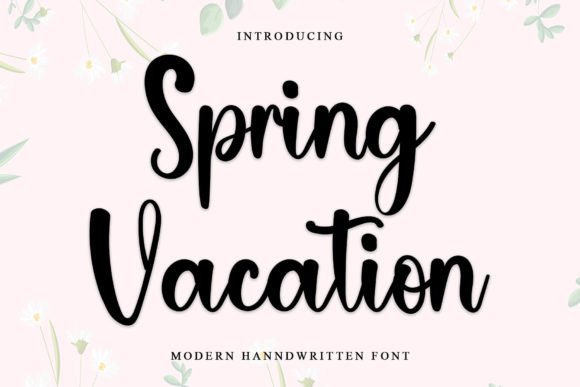
Adorn your designs with the magic of Spring Vacation Font, a captivating handwritten script family. Its charming elegance and delicate touch will elevate your creative projects, transforming them into breathtaking masterpieces. Inspired by the joys of springtime, this font exudes warmth, happiness, and a touch of playful whimsy.
Bring your words to life with the graceful curves and flowing lines of Spring Vacation Font. Its distinctive style adds a personal touch to your designs, making them stand out from the ordinary. Whether you're a seasoned designer or just starting your creative journey, Spring Vacation Font is the perfect tool to elevate your work.
With its versatility, Spring Vacation Font effortlessly adapts to a wide range of projects. Create stunning wedding invitations, enchanting logos, heartfelt social media posts, or eye-catching marketing materials. Its flexibility allows you to explore endless possibilities, bringing your unique vision to life.
Step into a world of creativity with Spring Vacation Font. Its timeless aesthetic transcends trends, ensuring your designs remain captivating and relevant. Experience the joy of crafting designs that resonate with your audience, leaving a lasting impression that speaks volumes about your artistry and attention to detail.
Don't settle for ordinary fonts. Embrace the beauty of Spring Vacation Font and immerse yourself in a world of creative possibilities. Let your designs bloom with elegance and charm, capturing the essence of springtime's magic.